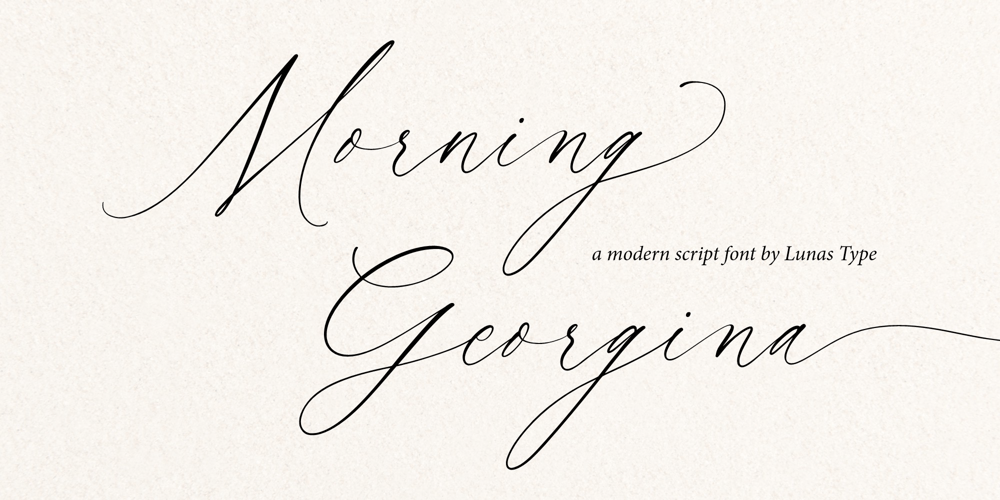
Morning Georgina Font Family was designed by Annas Alam Yahya and published by Lunas Type. Morning Georgina contains 1 styles and family package options. Morning Georgina is a modern yet timeless script font. Morning Georgina is fun and quirky with some charming flourishes.Morning Georgina is perfect for many design needs such as merch, T-shirts, signature logo, wedding, book covers, social media posts, websites, events, and many more.